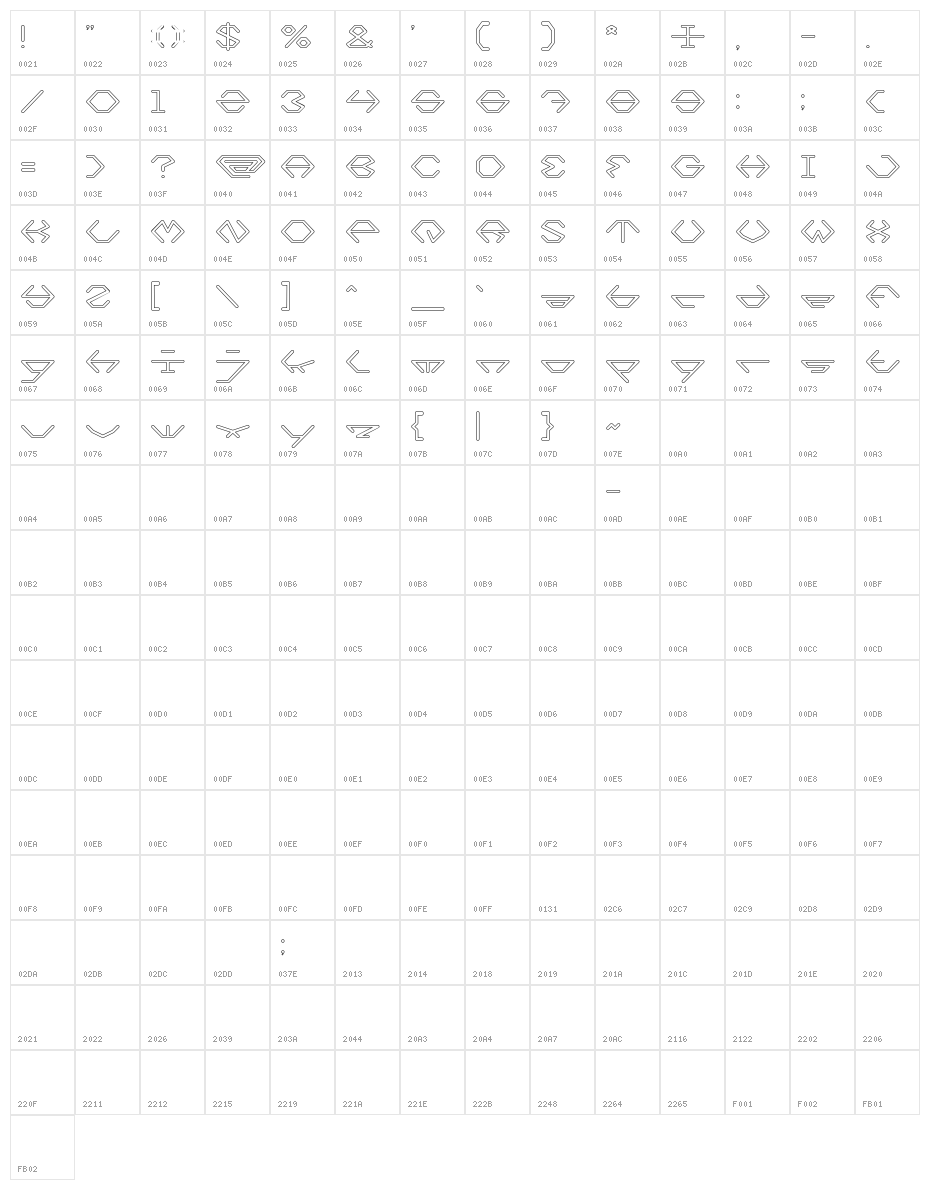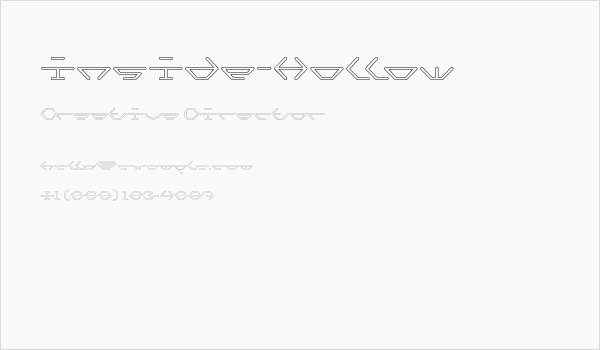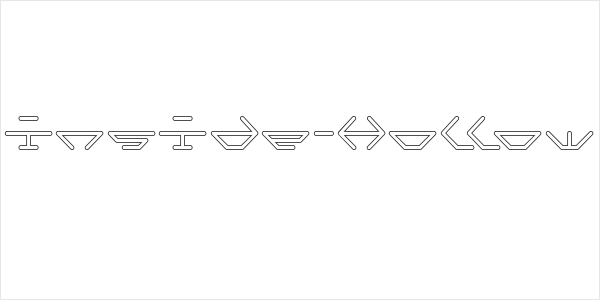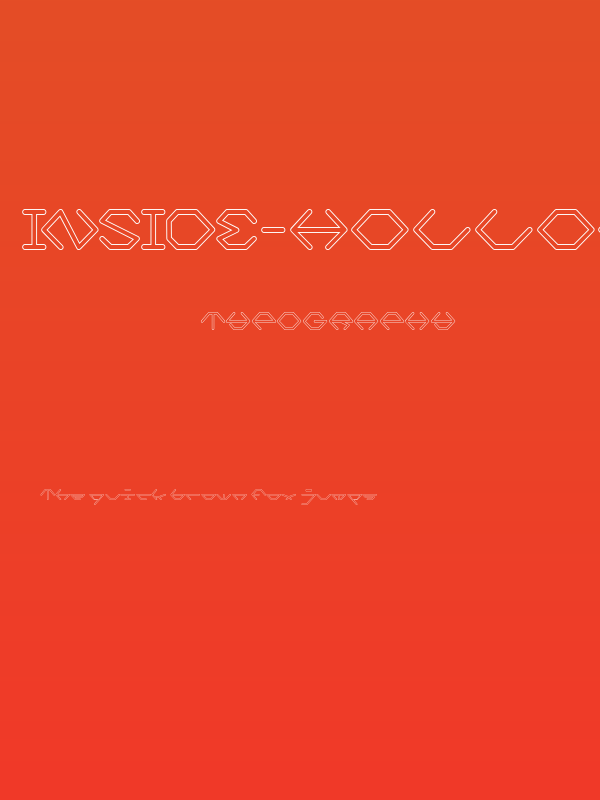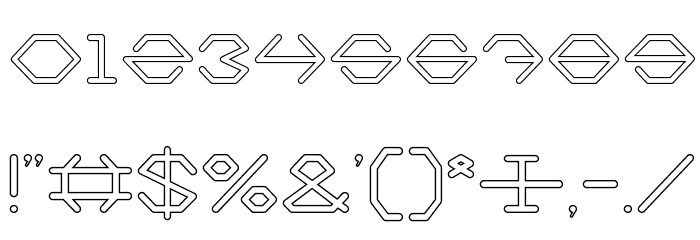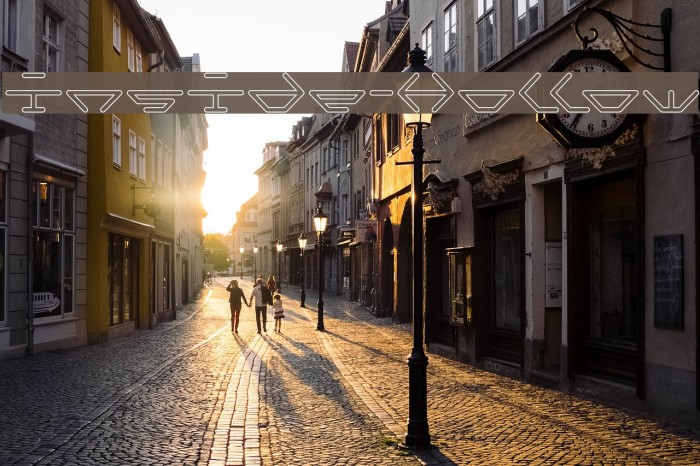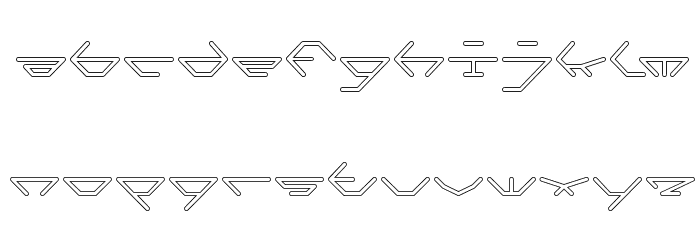
inside-Hollow Font
inside-Hollow Description
This font features a unique, geometric design with hollow, outlined characters. Each letter and number is constructed with angular lines and sharp edges, creating a futuristic and tech-inspired appearance. The characters are uniform in height and width, contributing to a cohesive and structured look. The font's hollow nature gives it a light and airy feel, while the angular design adds a sense of modernity and innovation. Special characters are designed with the same geometric style, maintaining consistency across the font set.